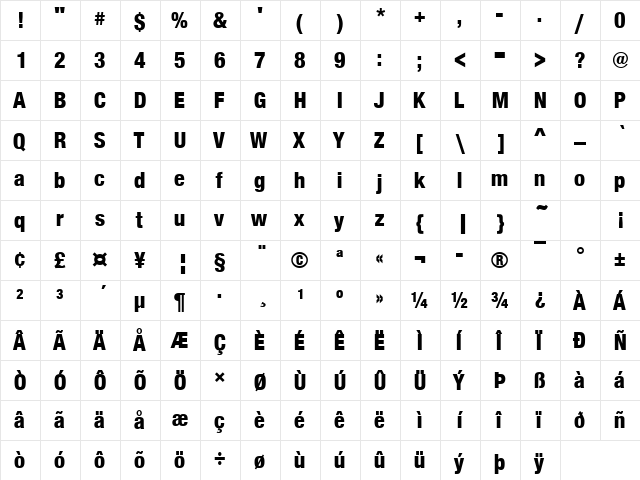
NimbusSanNovDHeaCon Regular
Design Context for NimbusSanNovDHeaCon Typeface
NimbusSanNovDHeaCon is a composed and adaptable typeface that performs quietly and consistently across a wide range of design contexts.
Pro Tip: Use NimbusSanNovDHeaCon in both headline and body roles to test its range before committing to a single application.